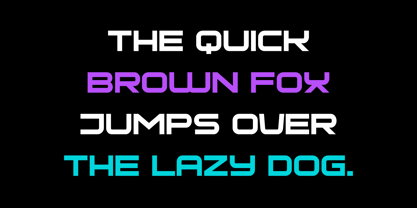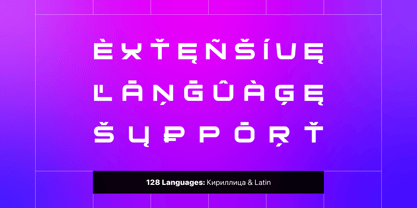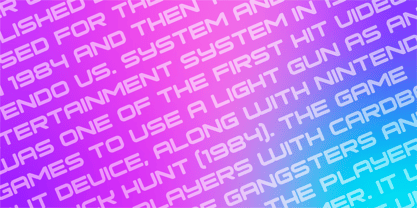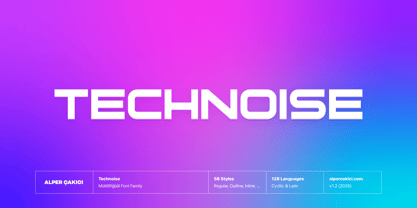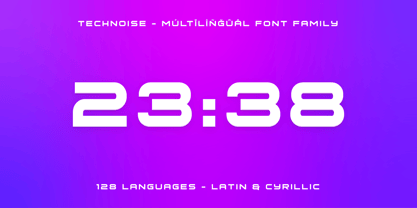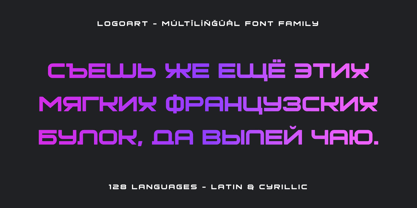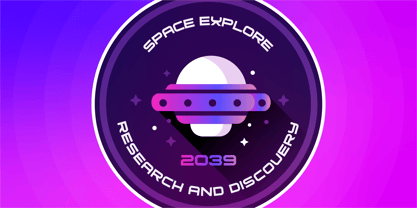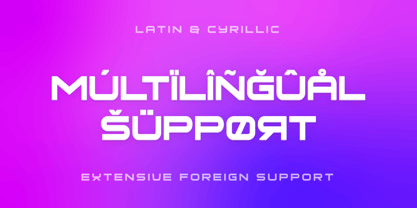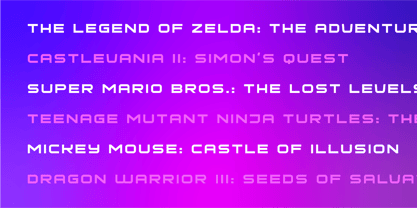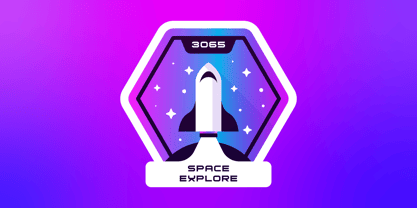
Technoise
by AlperCakici
The Technoise Font Family was designed by Alper Çakıcı and published by AlperCakici. Technoise contains 58 styles and family package options. More about this family
🚀 Technoise — A Futuristic Typeface System Built for Impact Technoise is a bold, forward-thinking multi-style typeface family designed for creatives who want maximum versatility with a strong sci-fi identity. Rooted in futuristic geometry and technical aesthetics, Technoise combines precision, experimentation, and expressive detail in one cohesive system. With 58 handcrafted styles, Technoise lets you move seamlessly from clean, minimal tech typography to rough, noisy, eroded, rimmed, inline, brush, and rounded expressions — all while maintaining visual consistency. From cinematic titles and game interfaces to branding, posters, albums, magazines, and UI design, Technoise adapts to any futuristic or high-impact visual language. ✨ Why Technoise Stands Out ✔ 58 Styles in One Family Angular, Circular, Rounded, Rough, Brush, Inline, Rimmed, Pencil, Noise, Eroded, Outline — plus italics for nearly every style. ✔ Futuristic & Technical DNA Sharp geometry, engineered cuts, and stencil-inspired forms create a modern, industrial, sci-fi feel. ✔ Designed for Creative Flexibility Perfect for tech brands, games, posters, motion graphics, interfaces, signage, product design, and experimental typography. ✔ Screen & Print Optimized Clear letterforms and balanced spacing ensure excellent readability across digital, print, and large-scale displays. ✔ Global Language Support Supports 128 languages with extensive Latin and Cyrillic coverage.
Designers: Alper Çakıcı
Foundry: AlperCakici